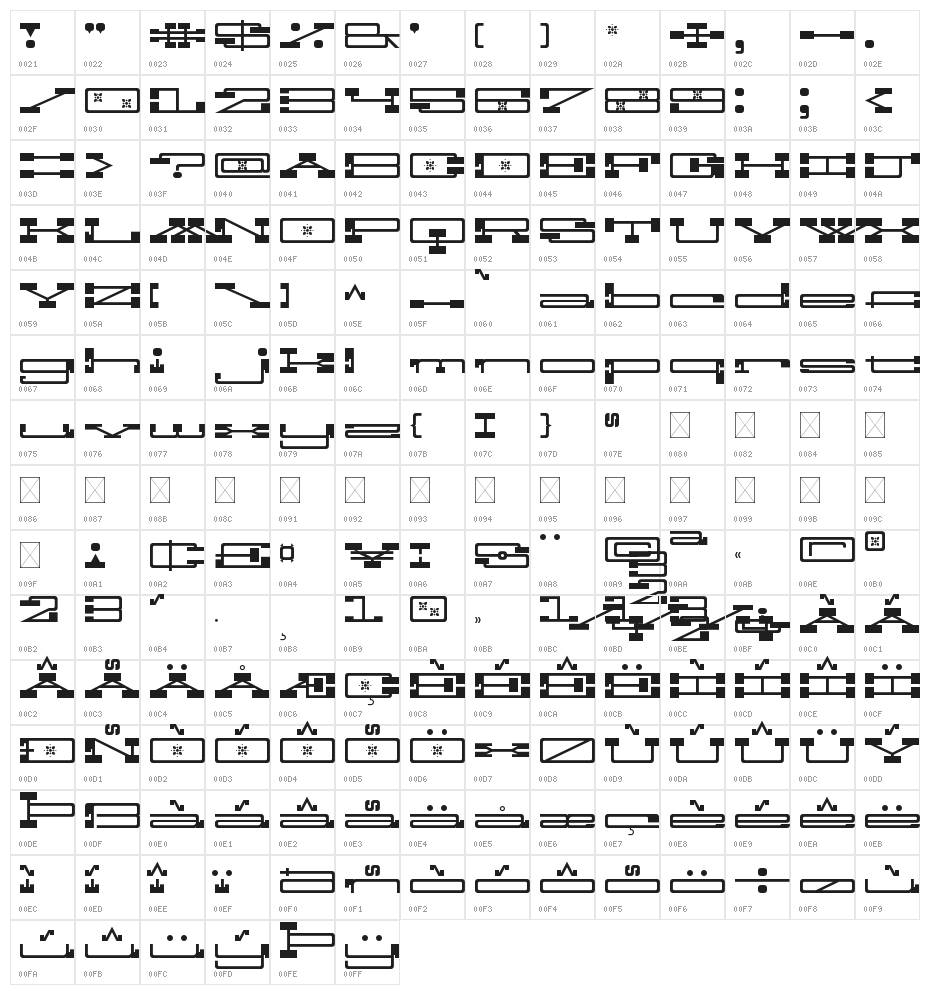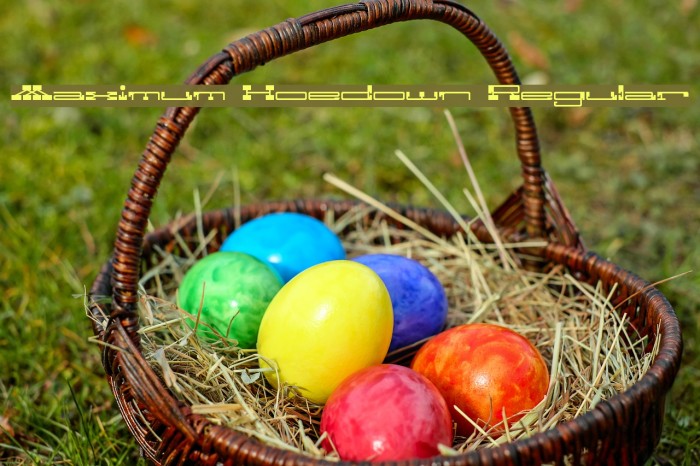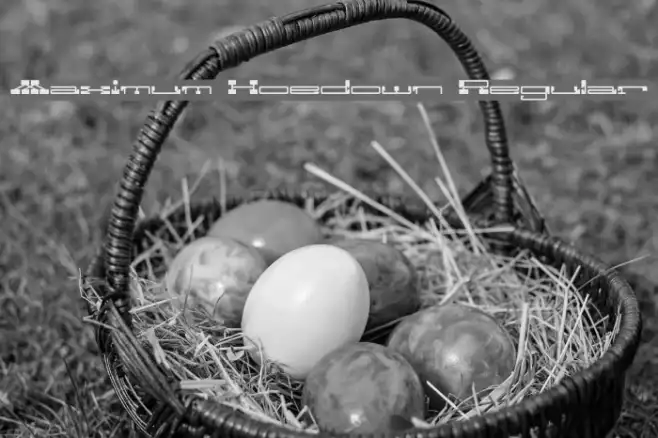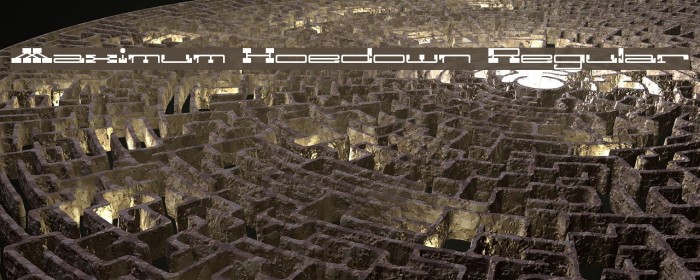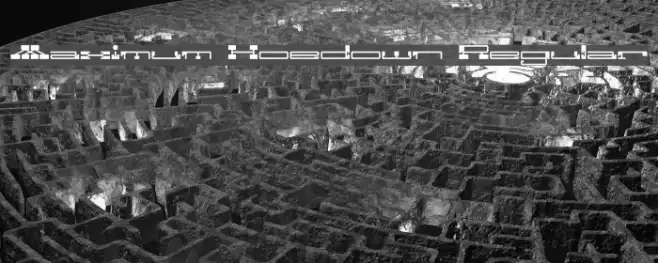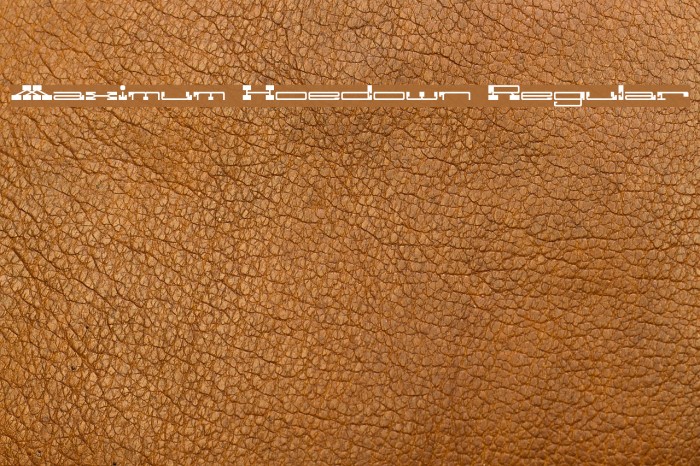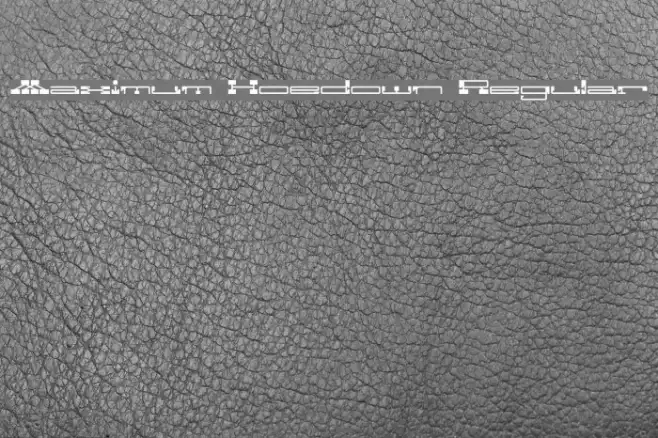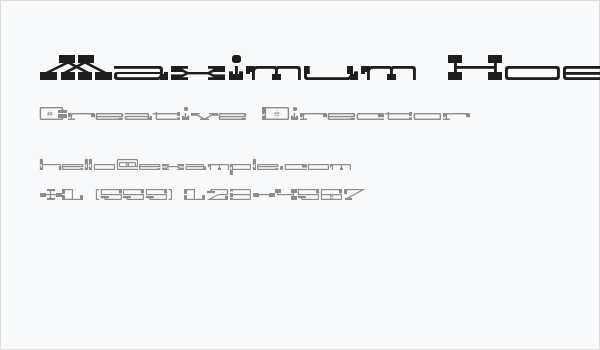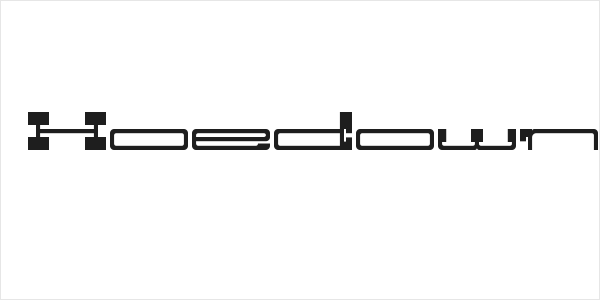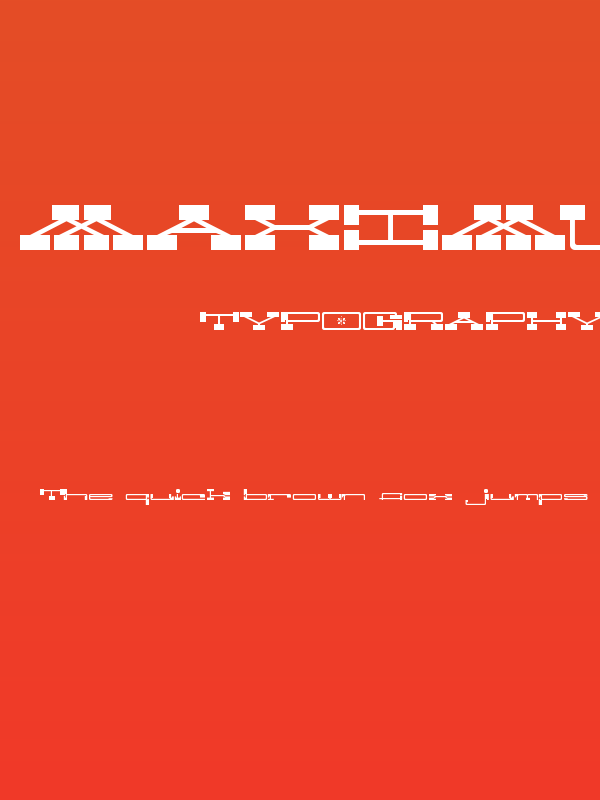
Maximum Hoedown Regular Font
Maximum Hoedown Regular Description
This font features a highly decorative and geometric style, characterized by its unique and intricate patterns within each character. The design incorporates a mix of solid and outlined elements, creating a visually striking appearance. The uppercase letters are bold and angular, while the lowercase letters maintain a consistent geometric theme. Numbers and special characters follow the same decorative pattern, making the font suitable for creative and artistic projects. The overall look is modern and futuristic, with a playful twist that adds a distinctive flair.
| Overall Style | Modern, Futuristic, Decorative |
| Proposed Projects | Ideal for creative projects such as posters, album covers, video game graphics, and branding materials that require a bold and artistic touch. |